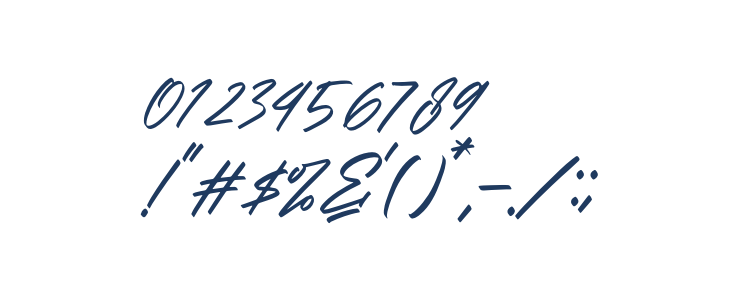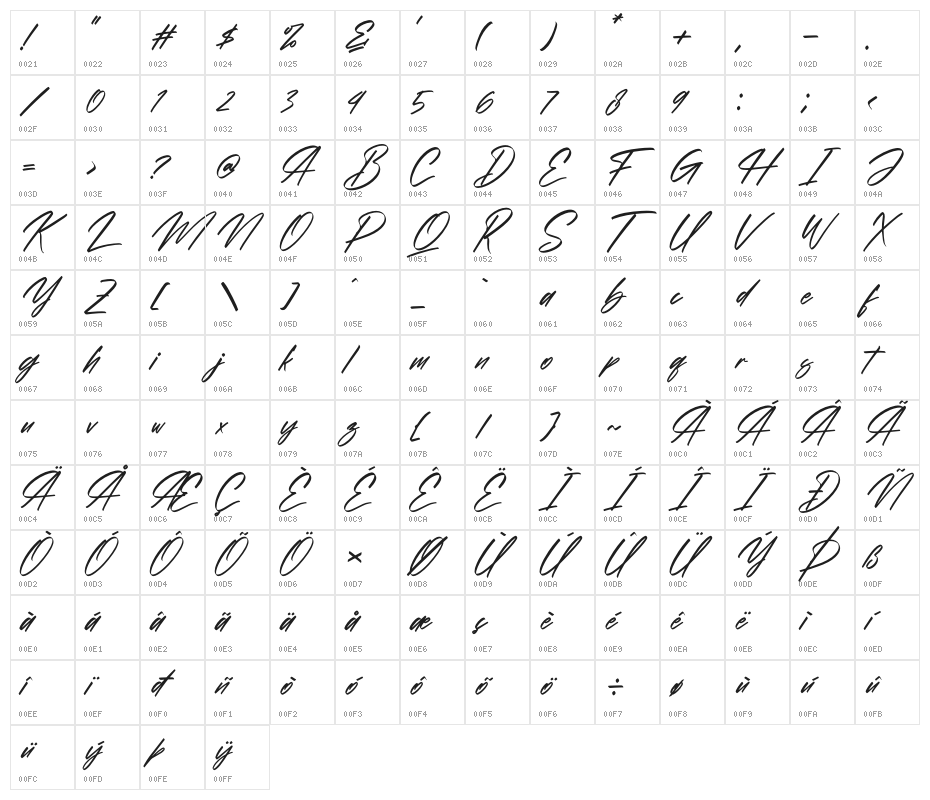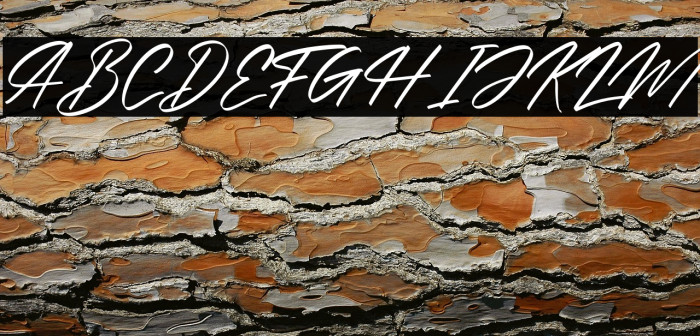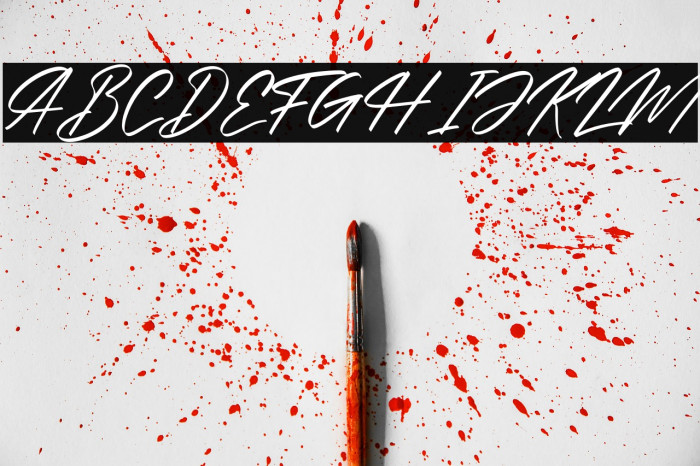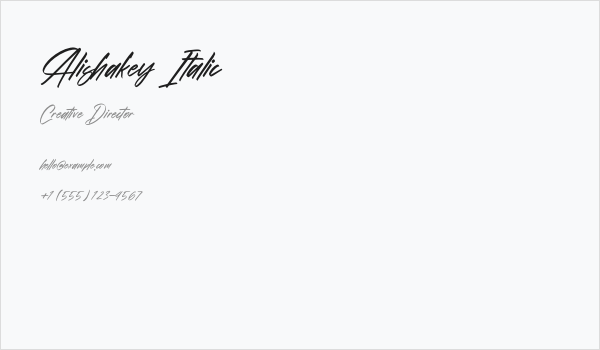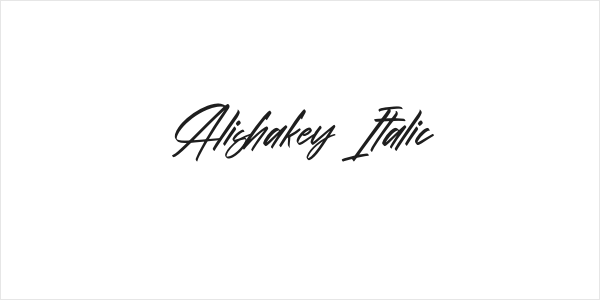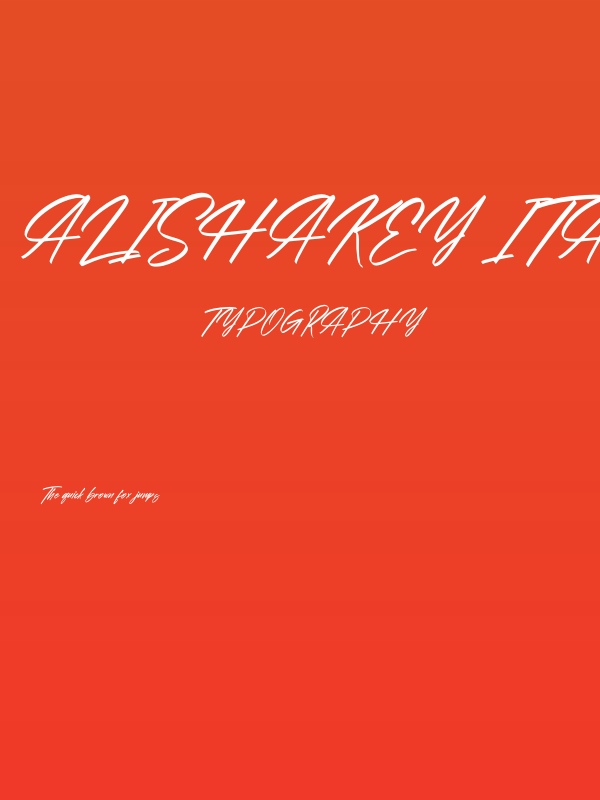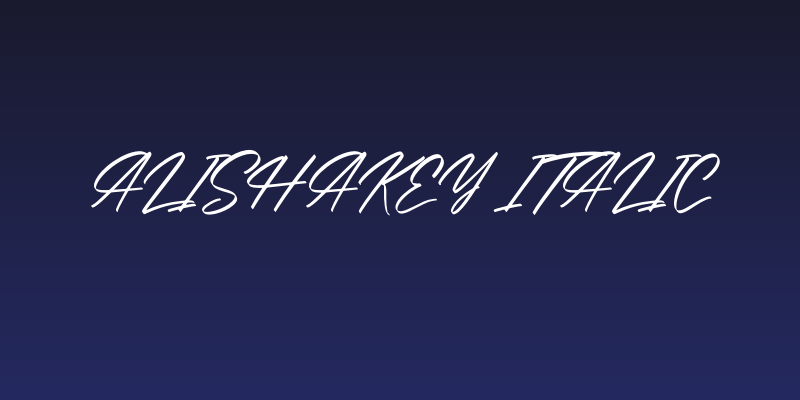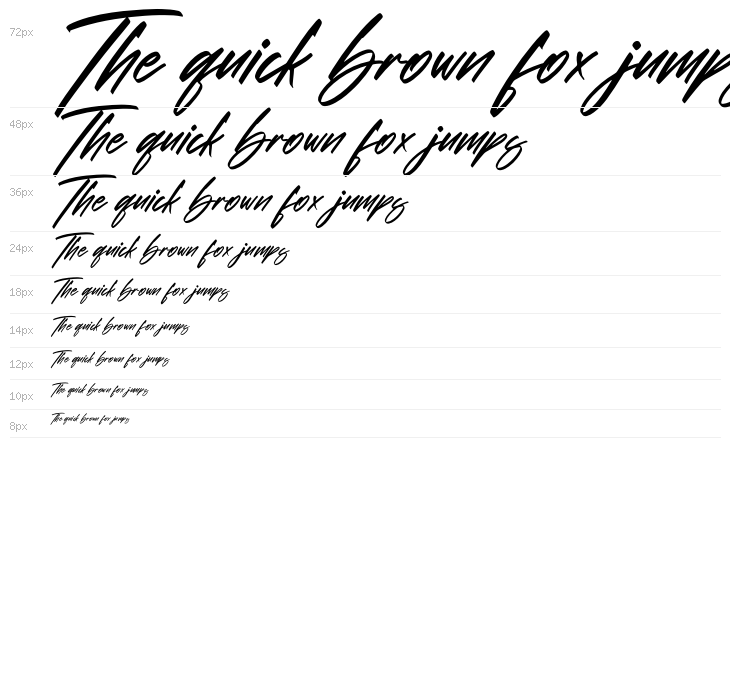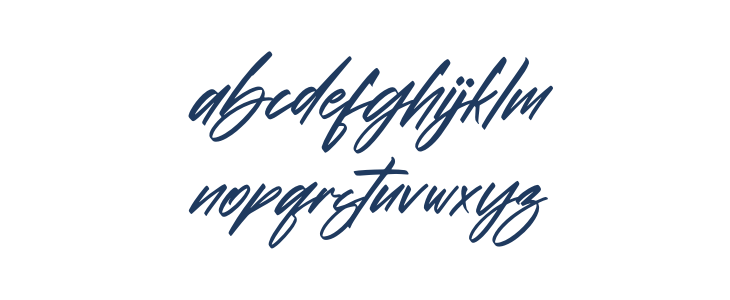
Alishakey Italic Font
Alishakey Italic Description
This font features a dynamic and flowing script style, characterized by its elegant, cursive letterforms. The uppercase letters exhibit a graceful, sweeping motion, while the lowercase letters maintain a consistent fluidity that enhances readability. The numerals are designed with a similar flair, ensuring they blend seamlessly with the alphabet. Special characters are crafted with the same attention to detail, providing a cohesive look across all glyphs. The overall appearance is both sophisticated and approachable, making it suitable for a variety of design applications.
| Proposed Projects | Ideal for wedding invitations, branding, greeting cards, and elegant packaging designs. |